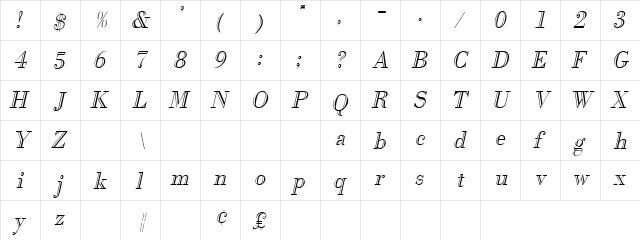
BodoniOpen Oblique
Design Context for BodoniOpen Typeface
BodoniOpen takes a measured approach to typography — its balanced proportions and neutral character make it a reliable workhorse for both digital and print work. Its italic angle brings a sense of urgency and motion to the letterforms.
Pro Tip: Use BodoniOpen for emphasis, pull quotes, and subheadings where its slanted energy can add rhythm to the layout.